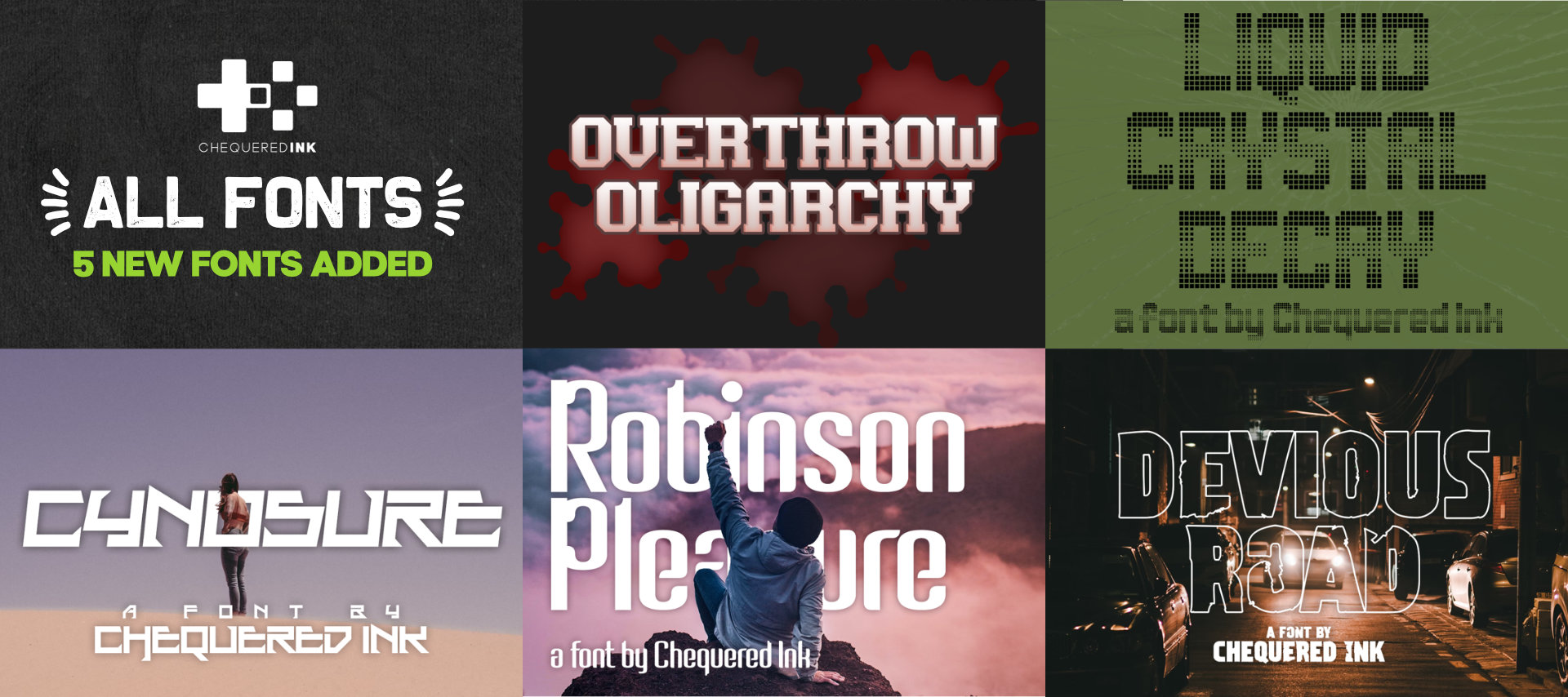
The new fonts are:
- Overthrow Oligarchy - an old school serif perfect for that college uniform vibe
- Liquid Crystal Decay - like somebody broke your calculator in maths class
- Cynosure - a quirky, pointy techno font good for sci fi projects
- Robinson Pleasure - a nearly-ordinary sans serif font with some quirky little dents and bobbles
- Devious Road - perfect for your next dystopian novel about death races in the desert
We hope you all enjoy the new fonts!